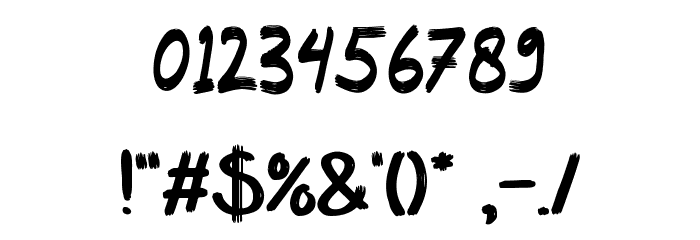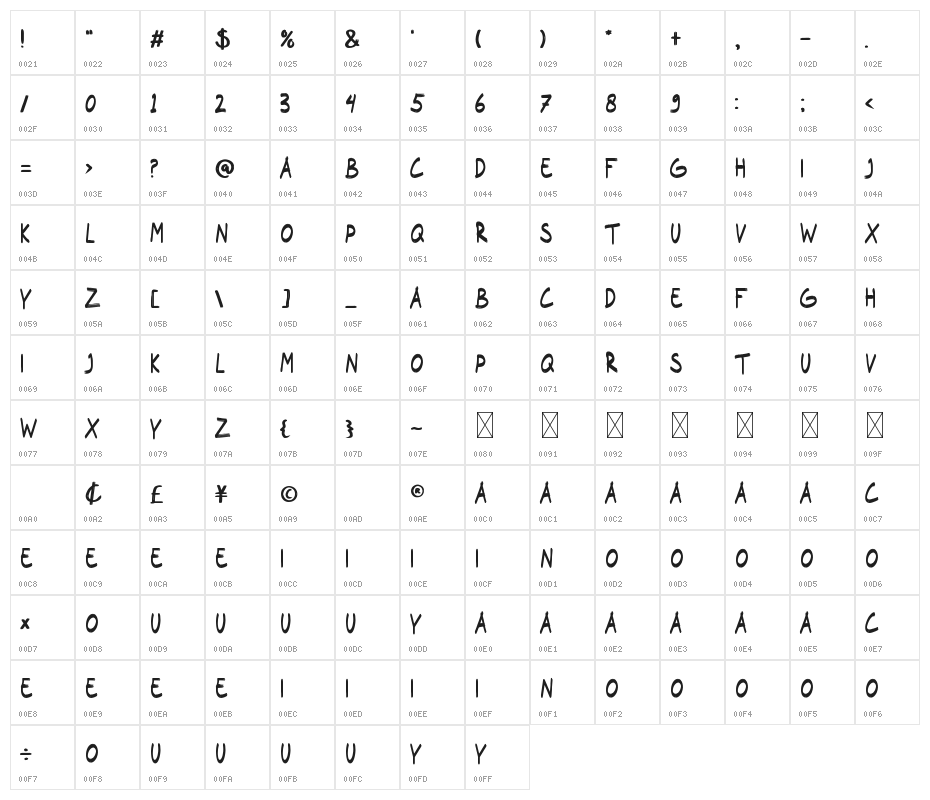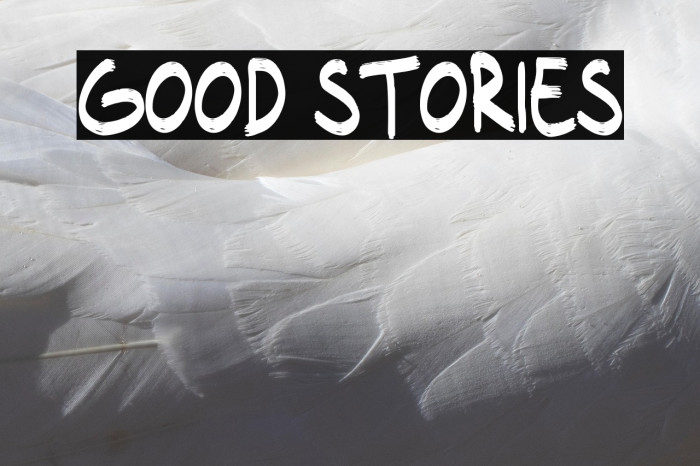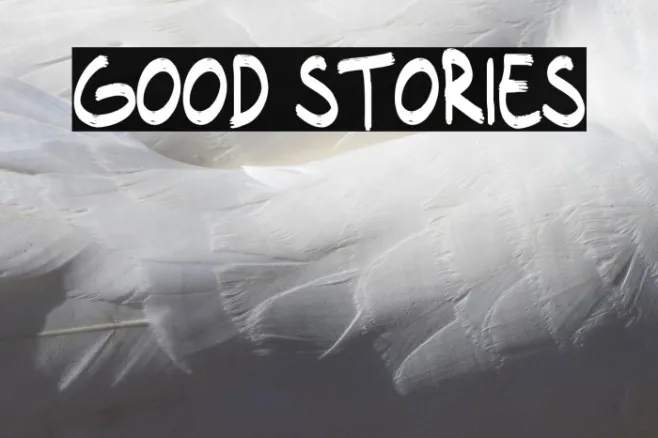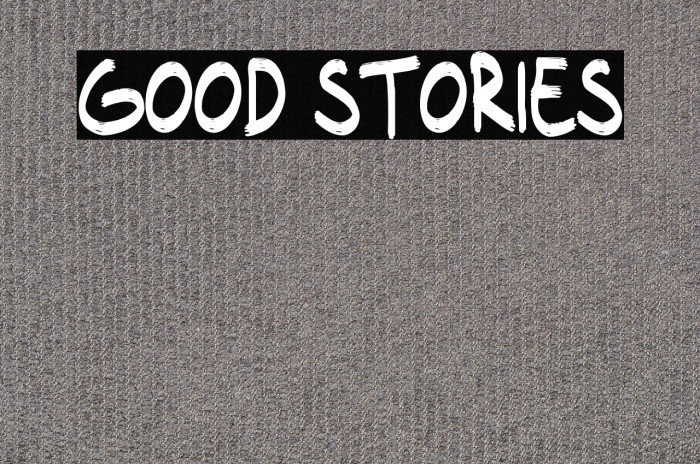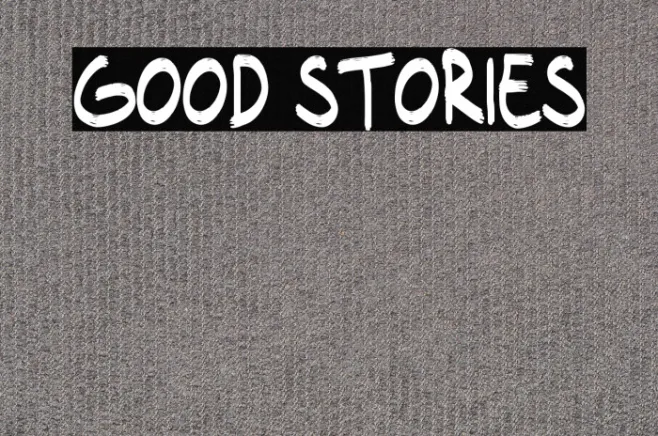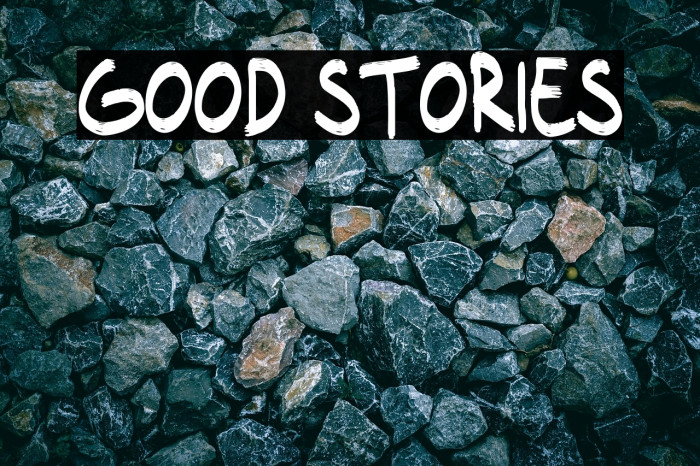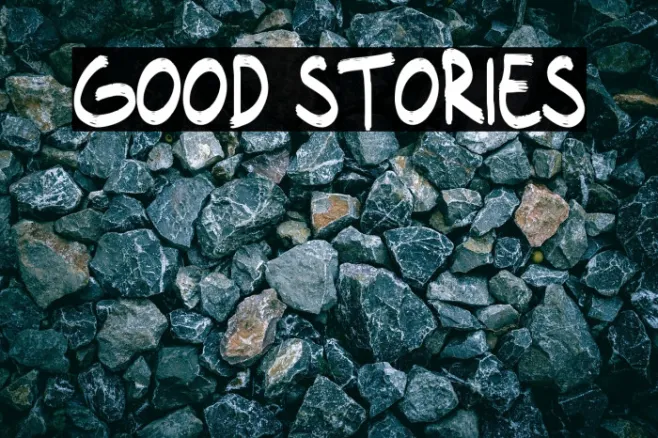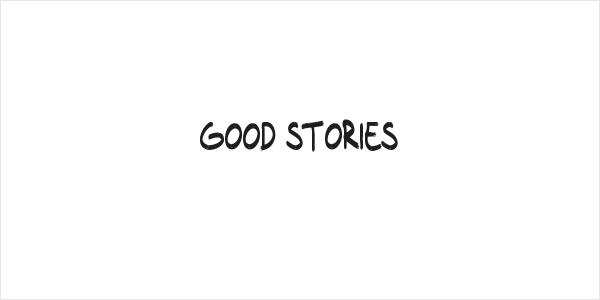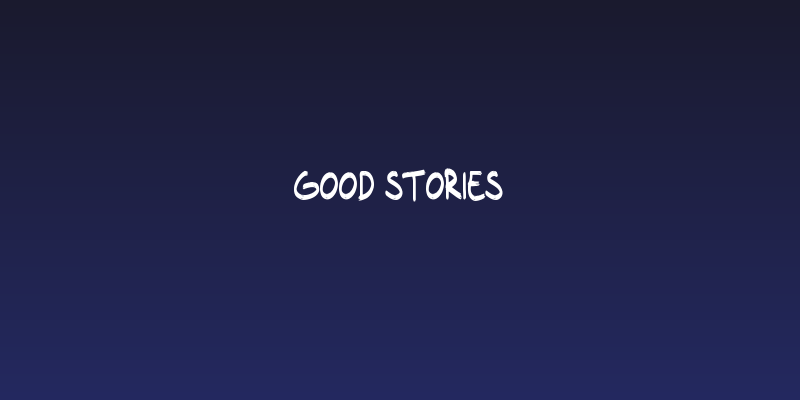
Good Stories Font
Good Stories Description
This font exhibits a bold, handwritten style with a playful and energetic character. The letters are slightly slanted, giving a dynamic and informal appearance. The strokes are uneven, mimicking the natural flow of handwriting, which adds a personal touch. The uppercase and lowercase letters maintain a consistent style, with rounded edges and a slight tilt. Numbers and special characters follow the same aesthetic, ensuring uniformity across all glyphs. This font is ideal for projects that require a casual and approachable feel, such as children's books, comic strips, or creative branding.
| Overall Style | Playful, Informal |
| Proposed Projects | Children's books, comic strips, creative branding, informal invitations. |